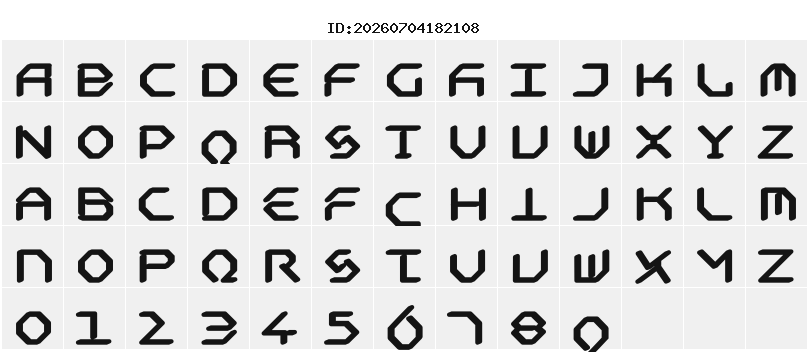
DreiDreiDrei-Black Preview
• Font Name: DreiDreiDrei-Black
About DreiDreiDrei-Black.ttf
DreiDreiDrei-Black.ttf is a modern, elegant sans-serif font designed for ultimate readability and visual harmony. Perfect for branding, headlines, web design, and print materials.